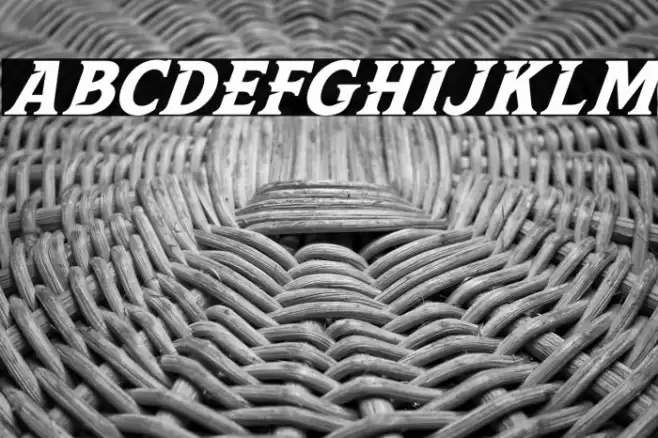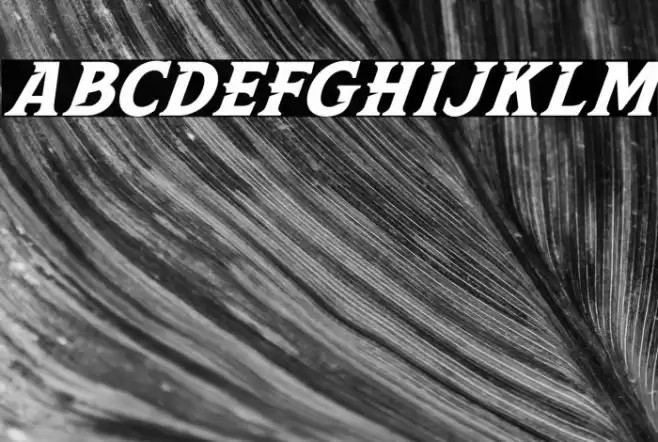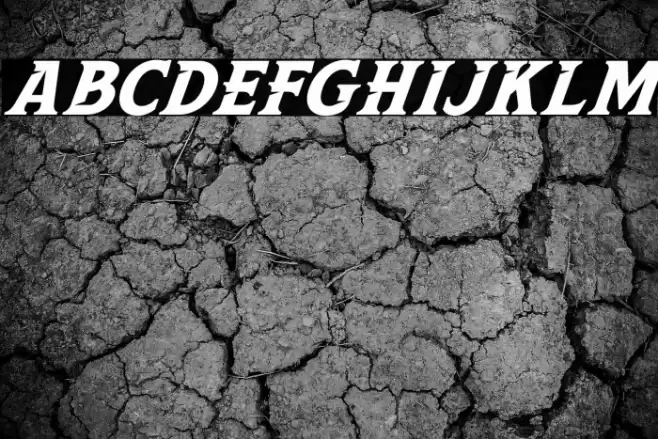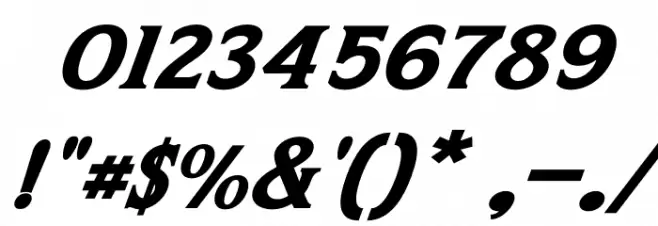
Leviathan Italic Font
Leviathan Italic Description
This font features a bold and dynamic italic style, characterized by its strong, slanted letterforms that convey a sense of movement and energy. The strokes are thick and consistent, providing a robust appearance. The serifs are pronounced, adding a touch of classic elegance to the overall design. The characters are well-spaced, ensuring readability while maintaining a cohesive look. The numbers and special characters follow the same bold and italicized style, making them stand out effectively. This font is ideal for making a strong visual impact.
A bold, italic serif font with strong, dynamic letterforms from Uncategorized fonts.
- Proposed Projects: Ideal for headlines, posters, branding, and any project requiring a bold, impactful typeface.
- Overall Style: Classic